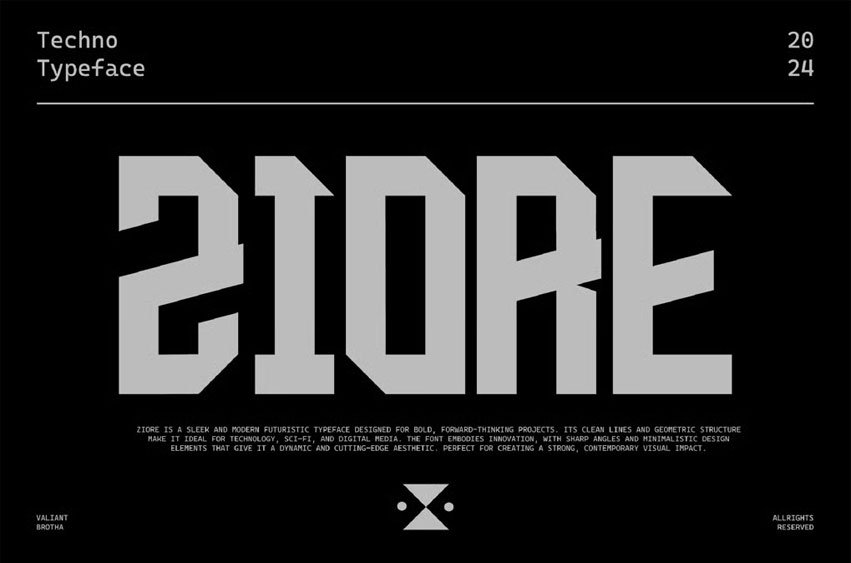
Ziore Font is a futuristic techno-inspired display font that combines sleek elegance with cutting-edge design. Its sharp, geometric letterforms evoke a sense of advanced technology while maintaining an air of sophistication.
The font’s unique structure makes it ideal for high-end branding, digital interfaces, and any project that requires a bold, modern aesthetic with a touch of class.